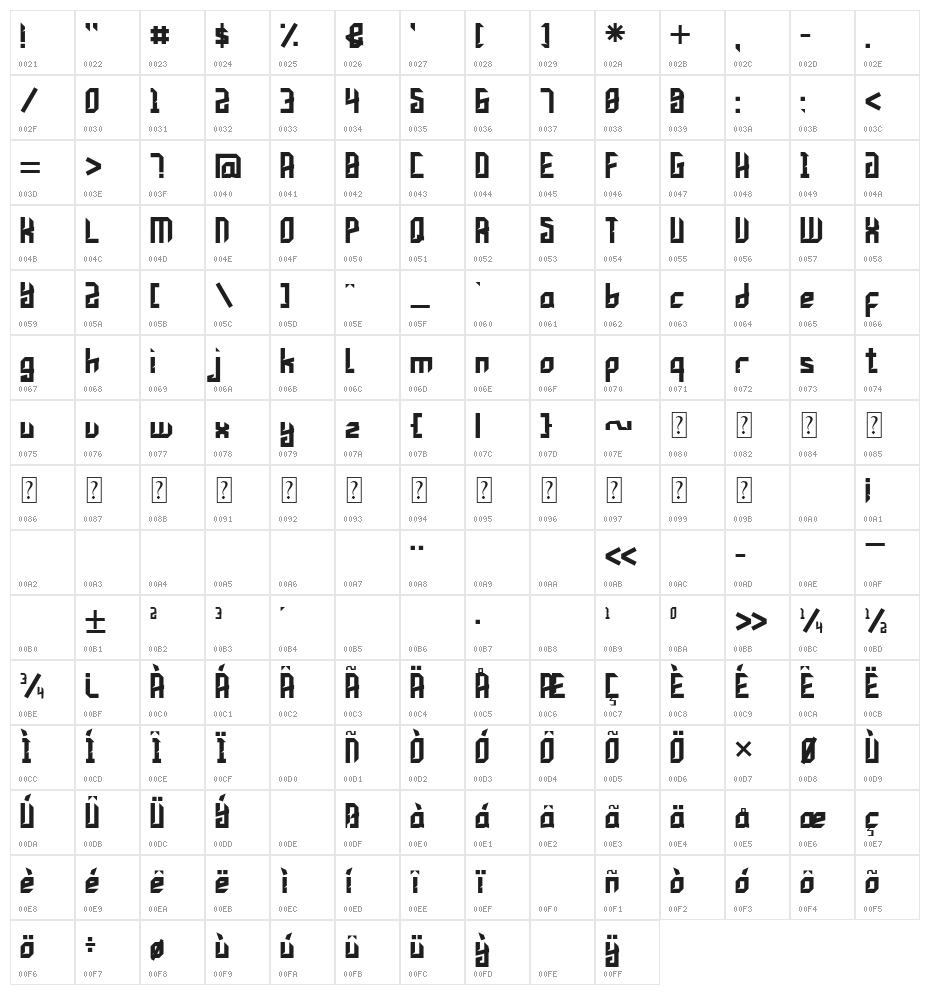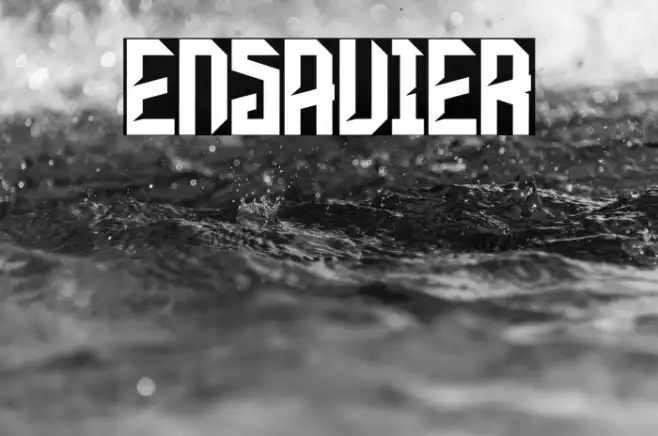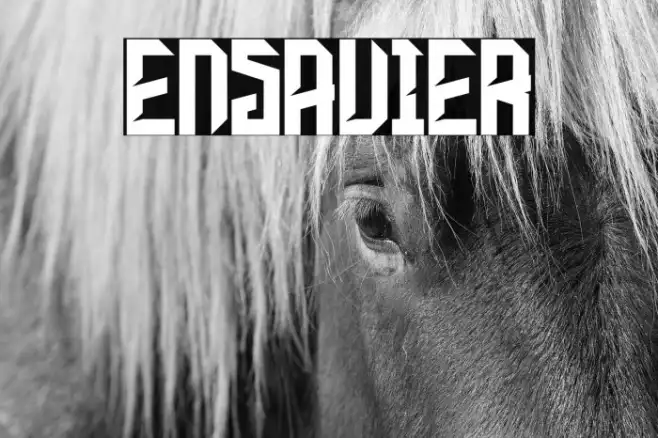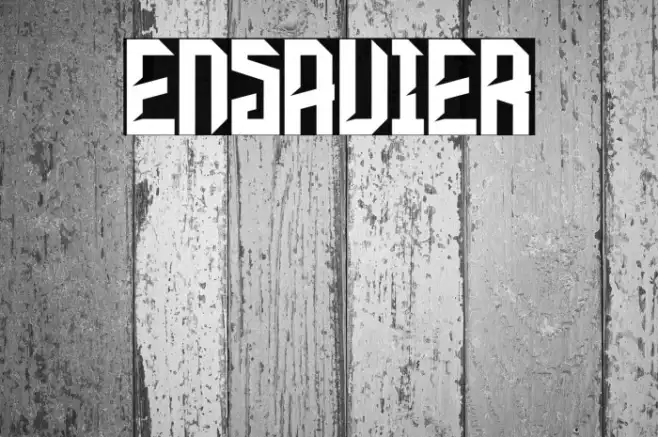
ENSAVIER Font
ENSAVIER Description
This font features a bold, geometric style with sharp angles and a blocky appearance. Each character is designed with a consistent width, giving it a monospaced feel, although it is not strictly monospaced. The uppercase letters are particularly striking, with a strong presence that commands attention. The lowercase letters maintain the same angular style, ensuring uniformity across the typeface. Numbers and special characters are crafted with the same attention to detail, making them easily recognizable and cohesive with the overall design. The font's unique style is reminiscent of digital or futuristic themes, making it suitable for projects that require a modern and edgy look.
| Proposed Projects | Ideal for use in digital media, video game graphics, tech branding, and modern posters. |